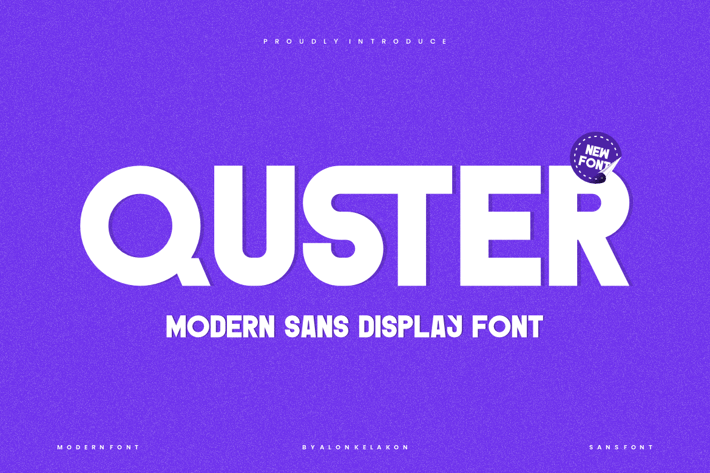
Quster - Modern Sans Font
Quster Font is unique . Ready to use for your design like labeling, movie sceen, poster, movie title, gigs, album covers, logos, and much more.